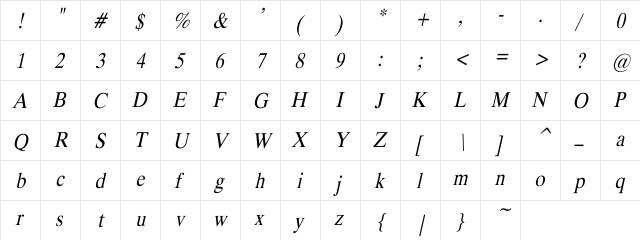
MicroTiempo-Normal Th italic Italic
Design Context for MicroTiempo-Normal Th italic Typeface
MicroTiempo-Normal Th italic is a composed and adaptable typeface that performs quietly and consistently across a wide range of design contexts. The dynamic lean of this cut emphasises speed and emphasis in any layout.